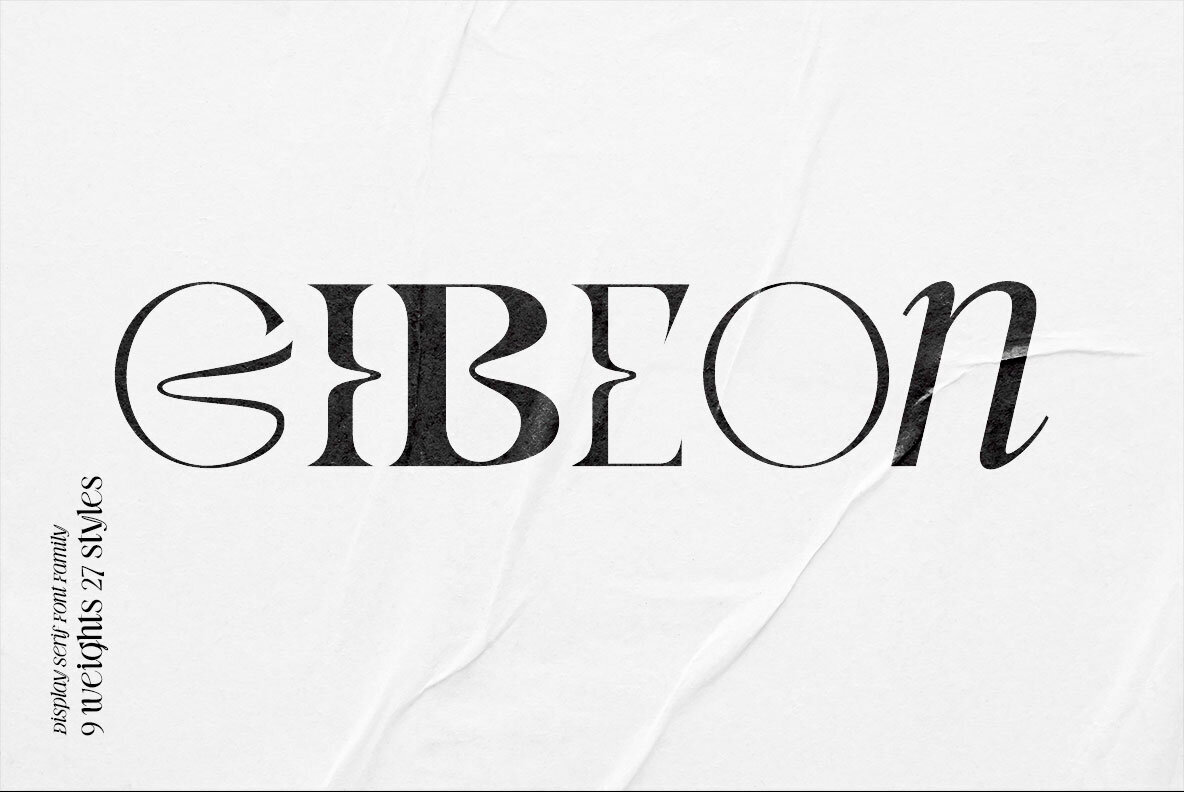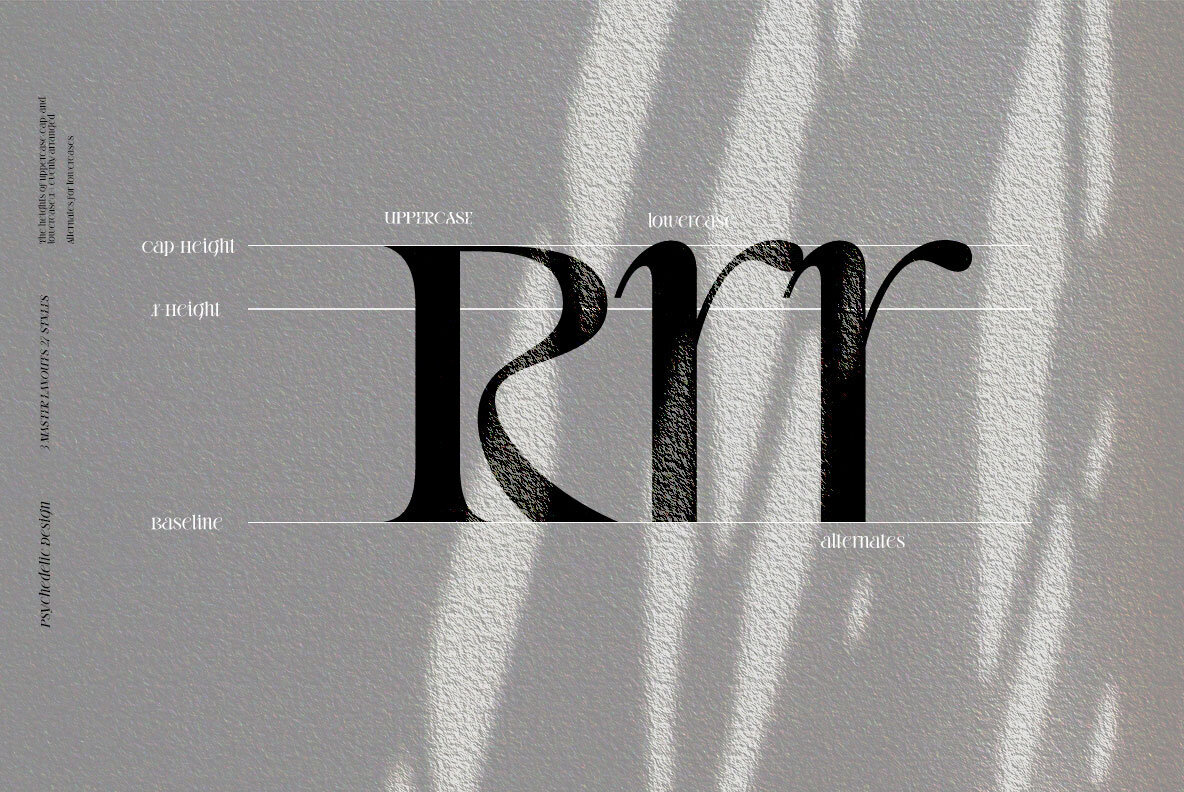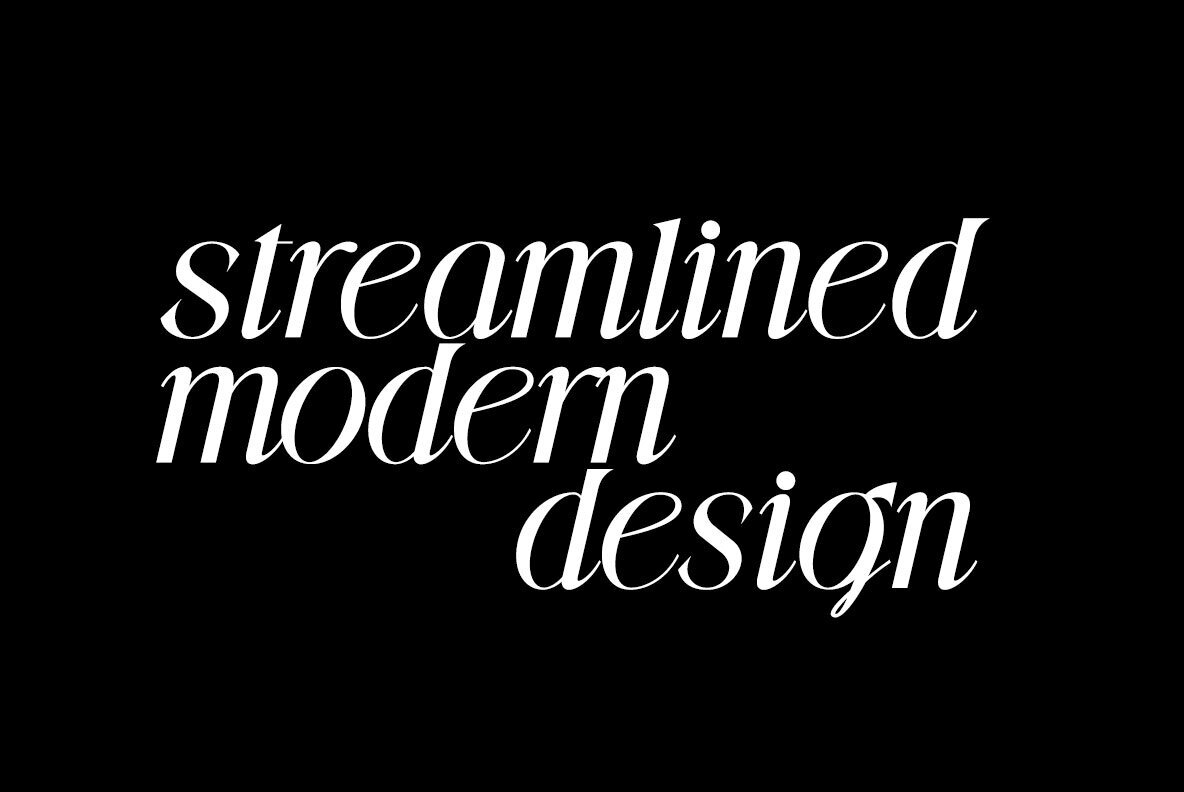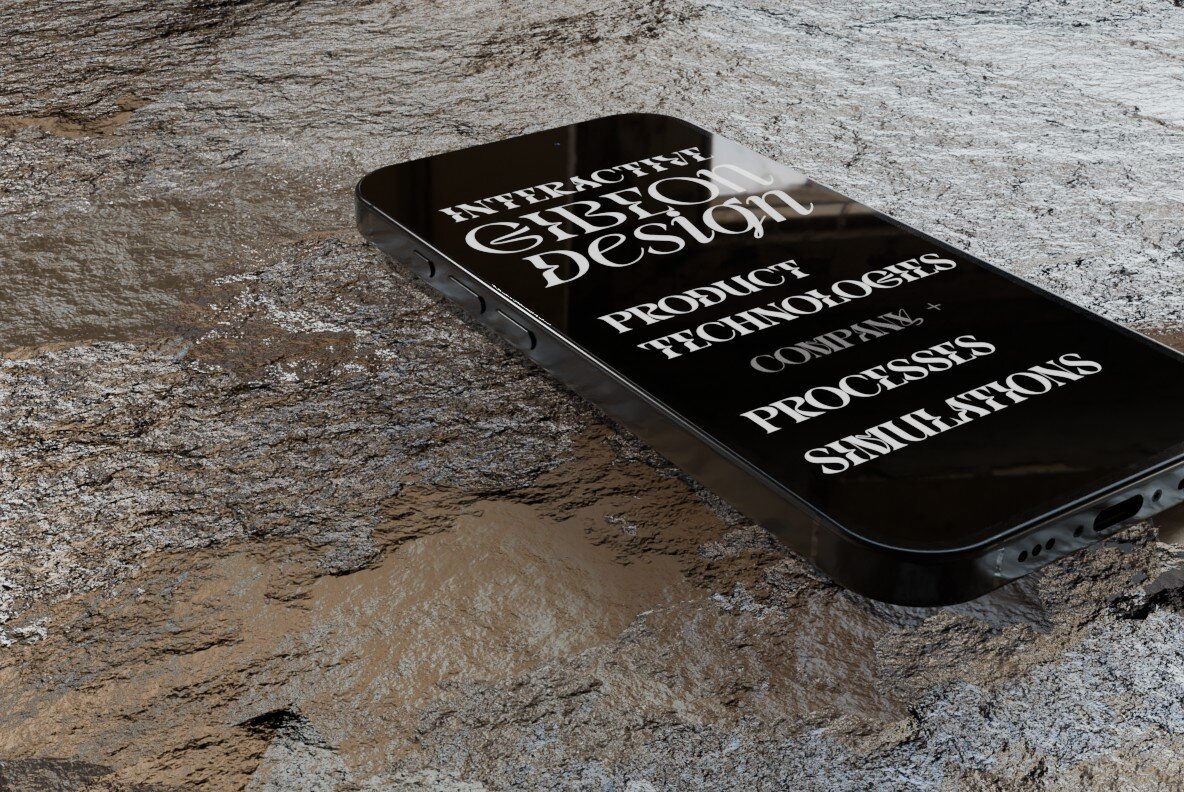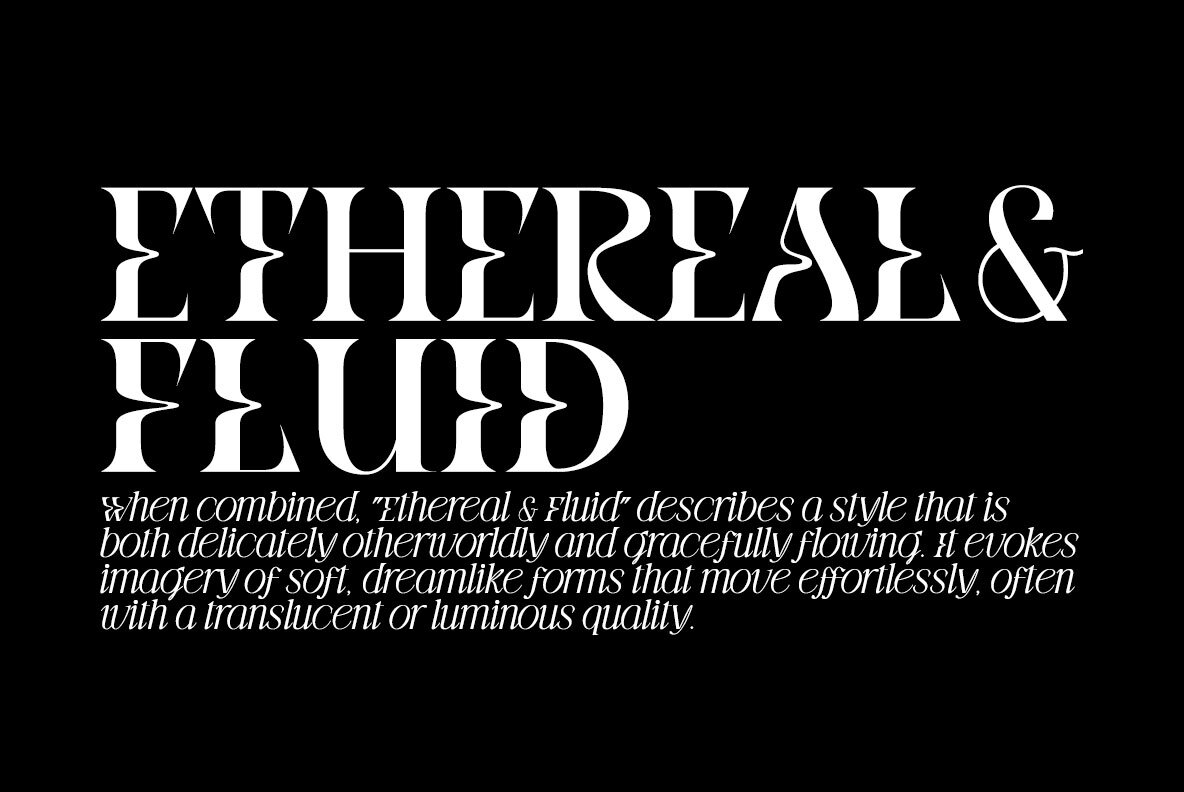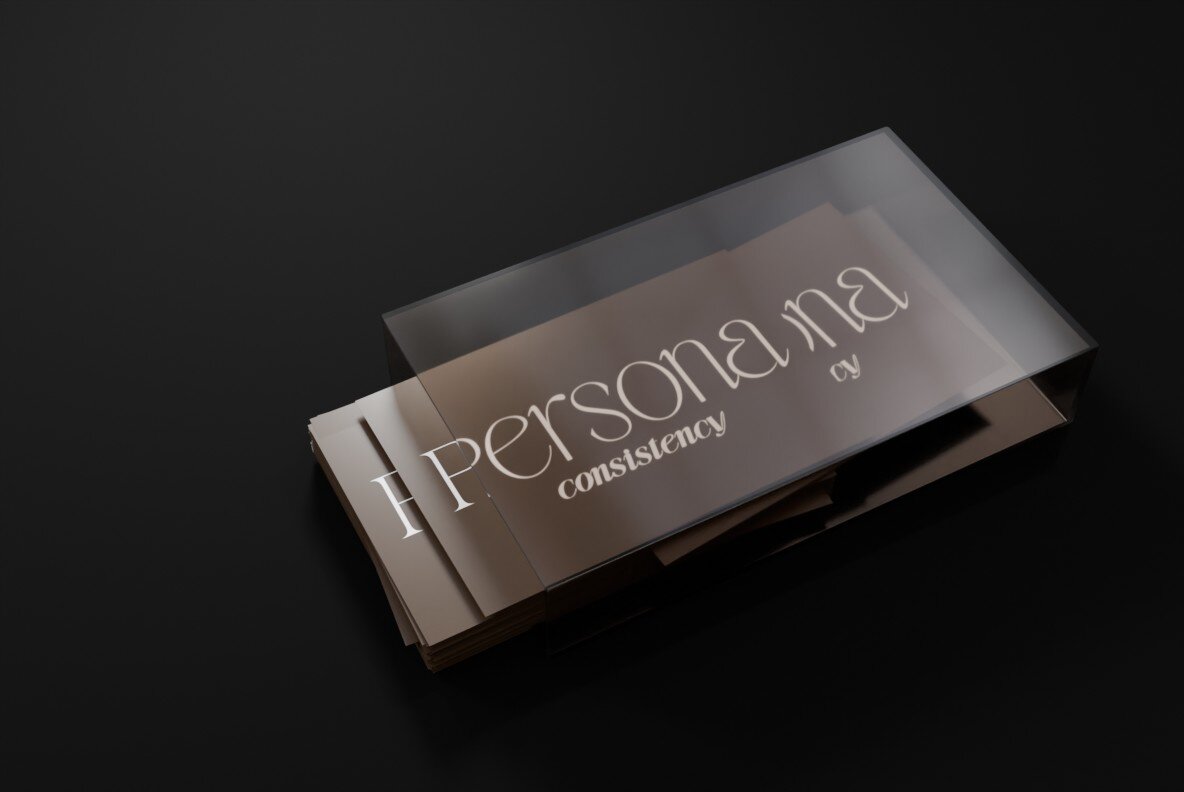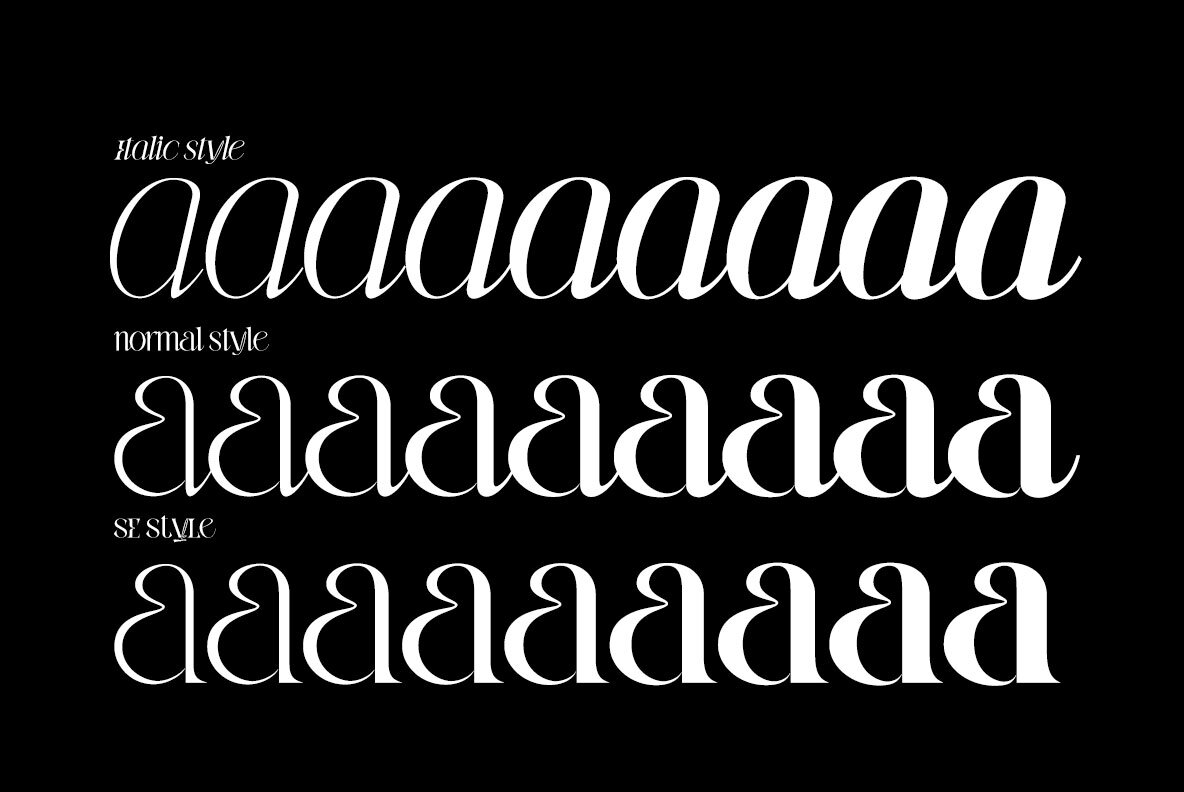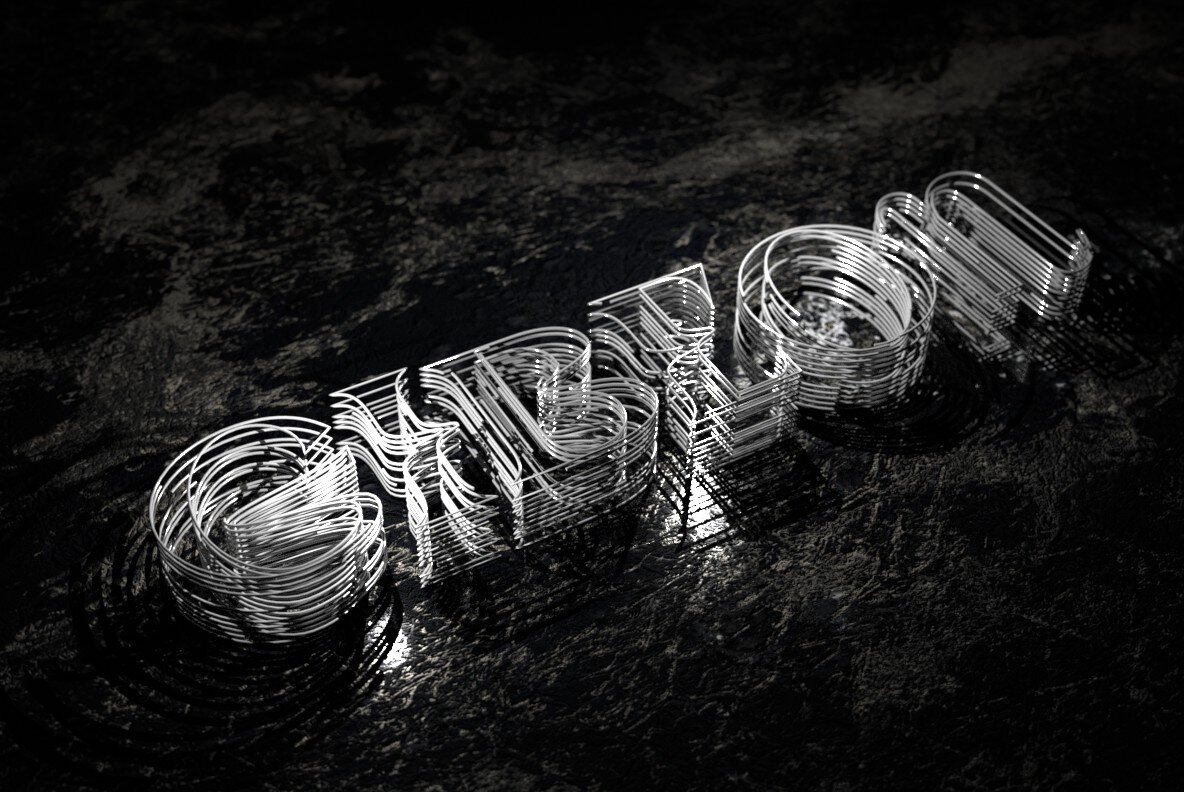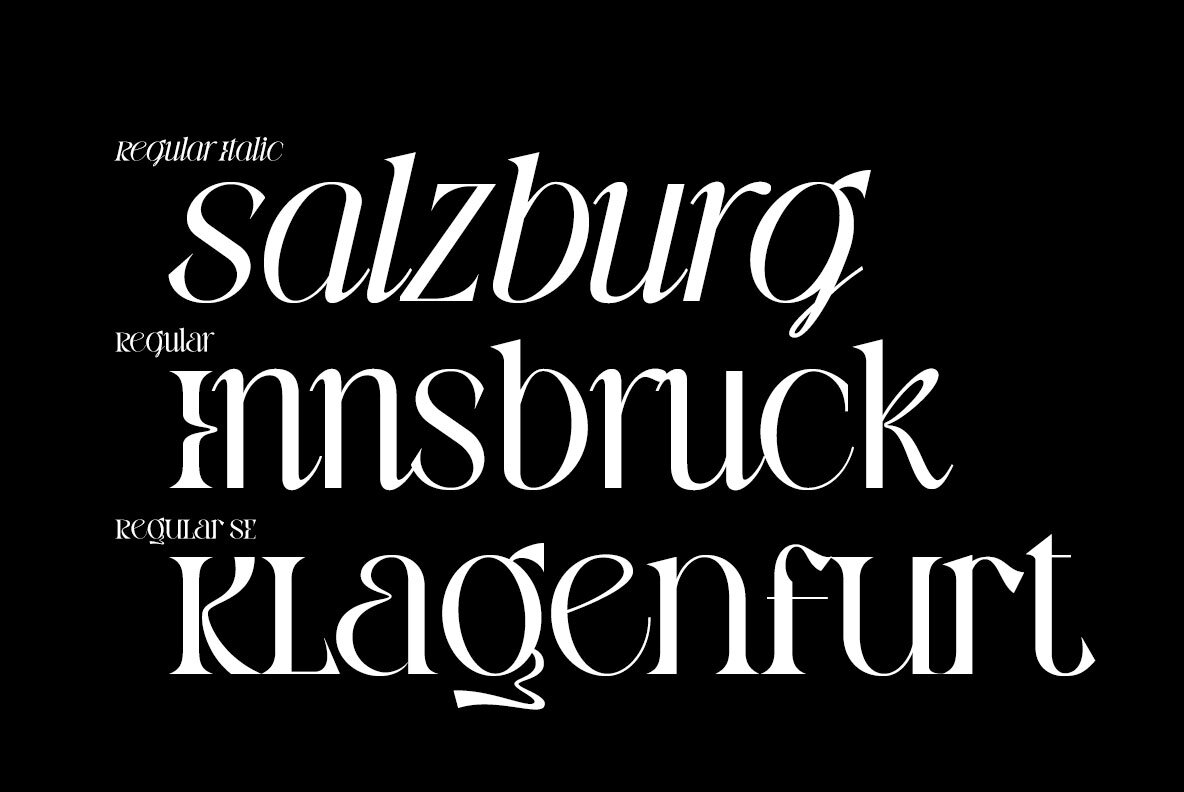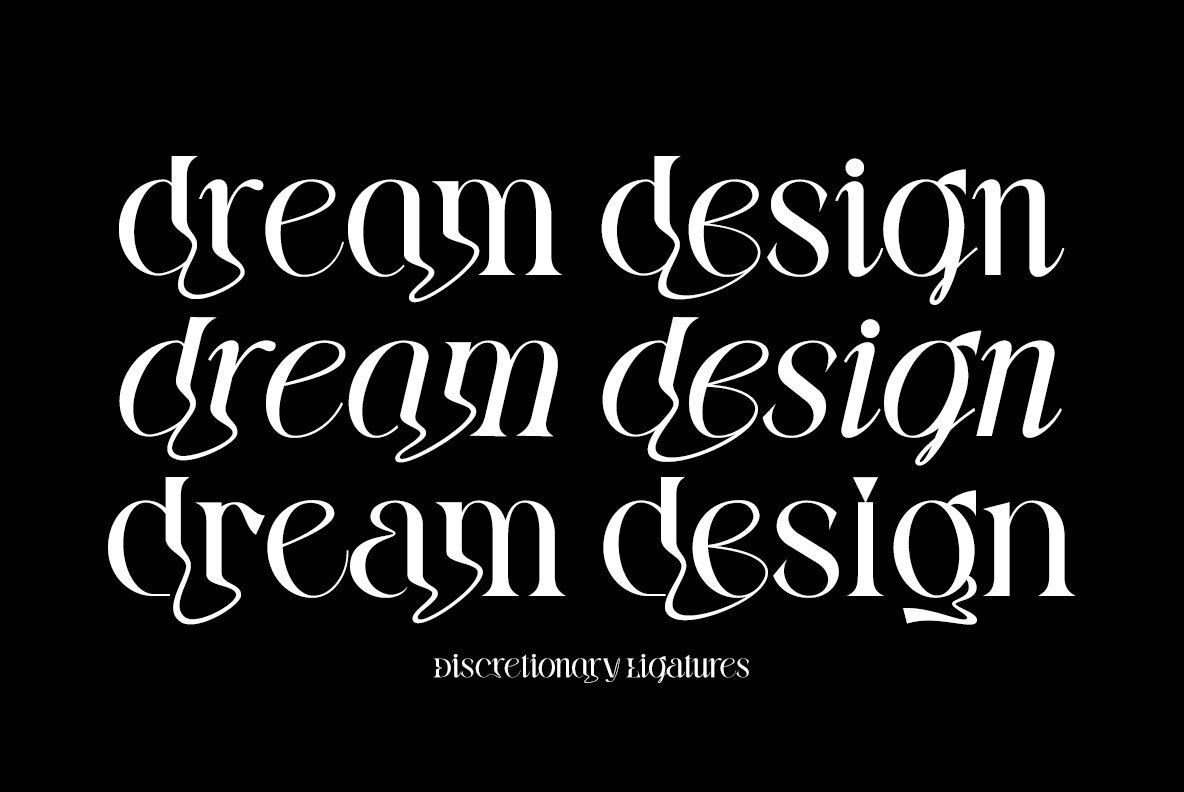
GIBEon Font
GIBEon stands out with its unique psychedelic strokes and design freedom, unmatched in its class. Its meticulously crafted x-height aligns lowercase with uppercase letters to ensure creative consistency. This collection offers three distinct master styles that harmonize effortlessly, making it particularly suited for headlines, logos, and branding.GIBEon: Psychedelic Font Collection for Dynamic Designs